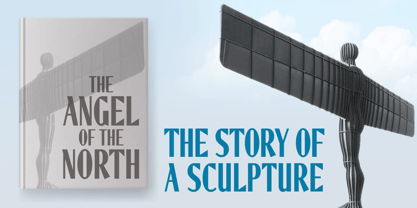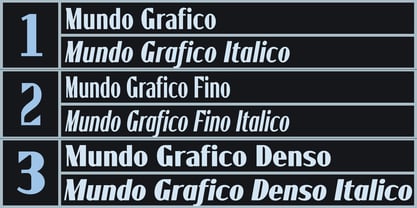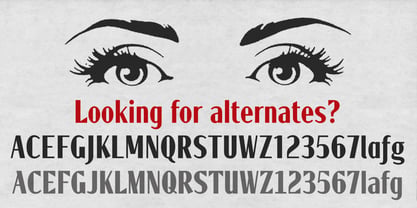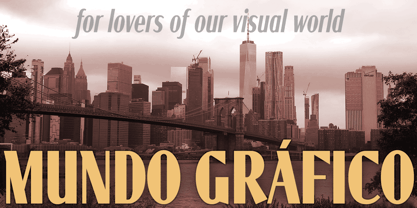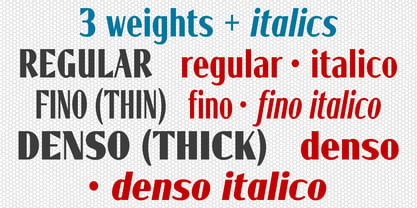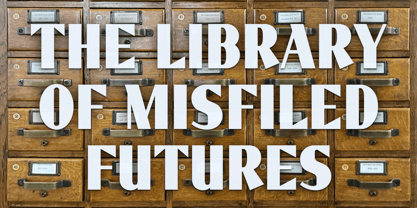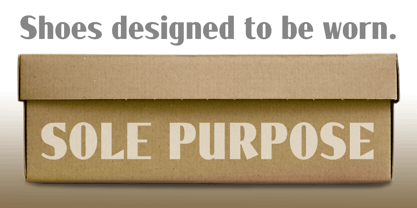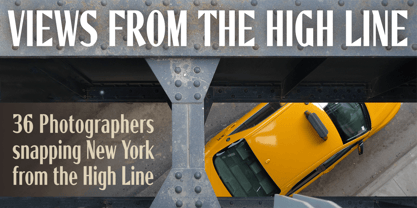
Mundo Grafico
by K-Type
The Mundo Grafico Font Family was designed by Keith Bates and published by K-Type. Mundo Grafico contains 6 styles and family package options. More about this family
Mundo Grafico is a striking high-contrast sans serif inspired by the masthead of the iconic 1940s Portuguese magazine. This typeface stands out with its vivacious character and Art Deco flair, making it ideal for display applications such as titles, captions, packaging, advertising, posters, and signage. The family includes three distinct weights – Regular, Thin (Fino), and Heavy (Denso) – each featuring an optically corrected italic variant. The fonts offer a comprehensive set of Latin Extended-A characters and include practical alternates, many of which provide simpler variations of more decorative glyphs, enhancing versatility for various design needs.